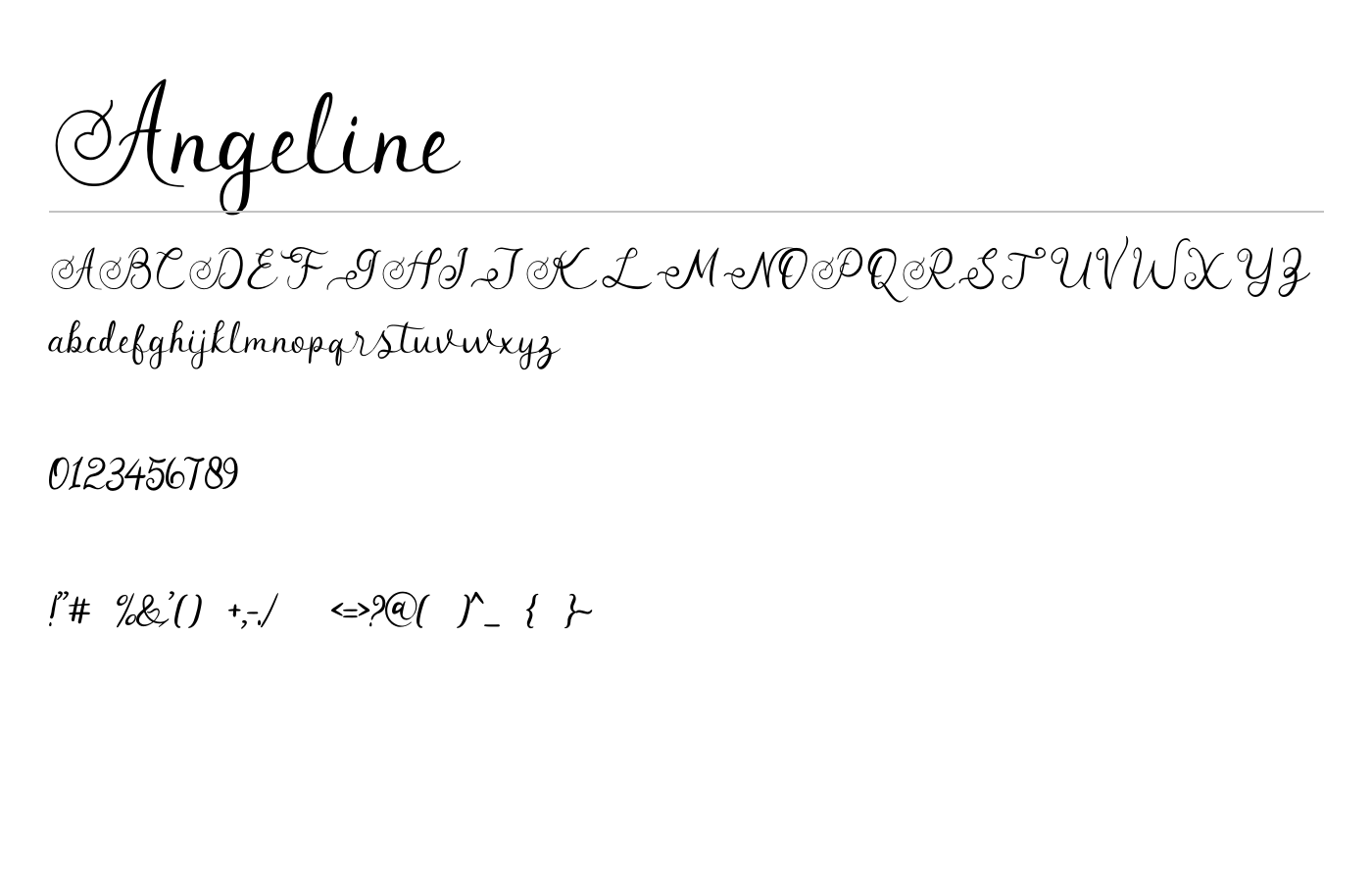
Angeline is an elegant script font characterized by its delicate, flowing strokes and graceful swashes, especially in the uppercase letters. Its fine lines and refined curves give it a sophisticated, romantic feel, making it ideal for wedding invitations, luxury branding, and feminine editorial designs. This font shines in decorative and headline uses where a stylish, handwritten touch is desired.
Angeline Font
About Angeline Font
| Font family | Angeline Font |
| Designer | MJB Letters 2019 |